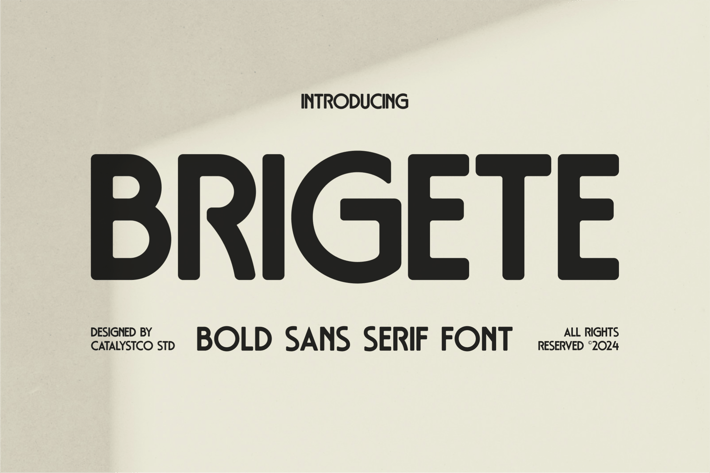
Brigete Sans Serif Bold Font
Brigete is a bold sans serif display font featuring rounded corners, geometric proportions, and a clean contemporary look. Designed to deliver strong visual presence, it blends modern minimalism with smooth curves, making each character feel solid yet friendly. Perfect for standout headlines, branding assets, posters, and digital interfaces that require clarity and bold expression. Includes uppercase, lowercase, numerals, and punctuation with smooth consistency across all shapes.
Brigete is perfect for branding projects, professional logo design, modern advertising, editorial layouts, tech presentations, bold posters, social media graphics, product packaging, digital interfaces, signage, and creative visual identities that require a clean and powerful sans serif look.